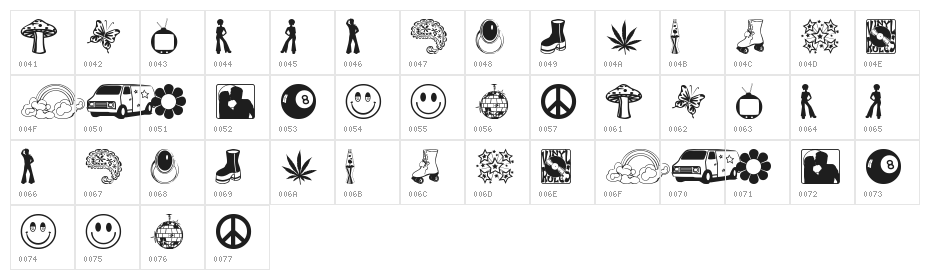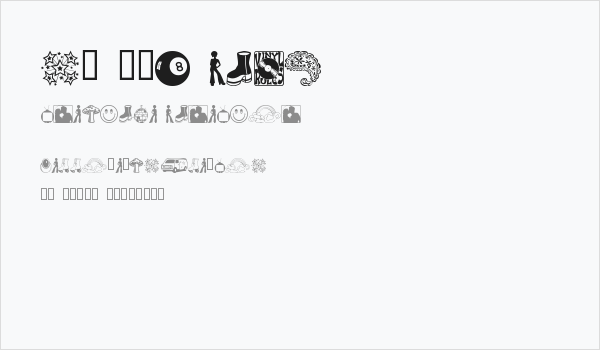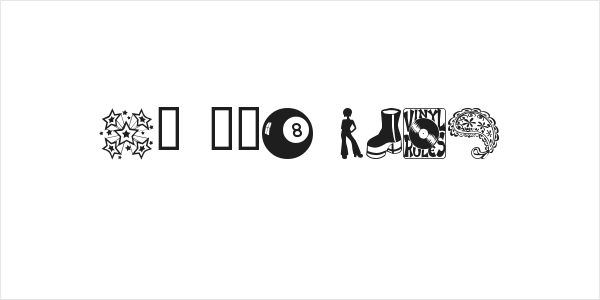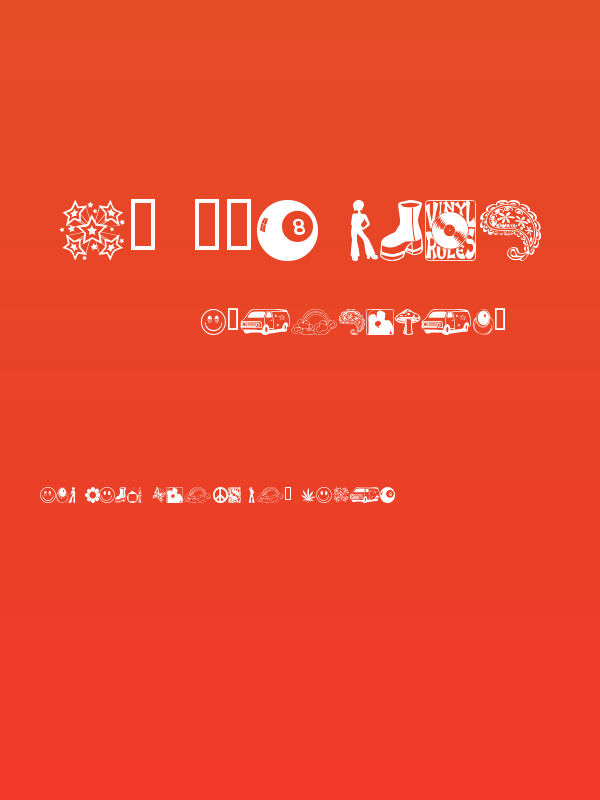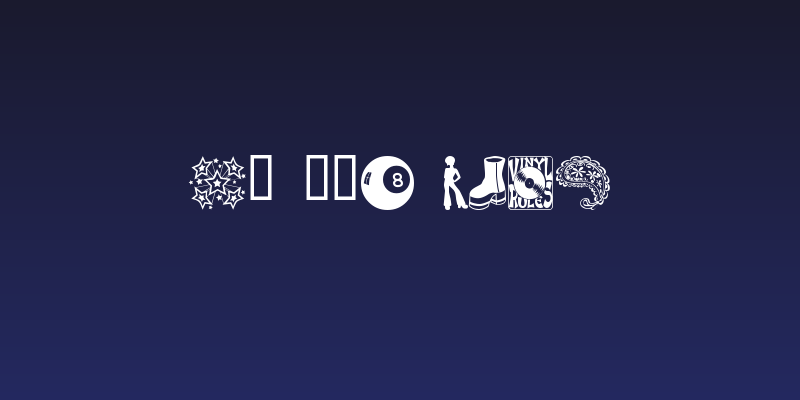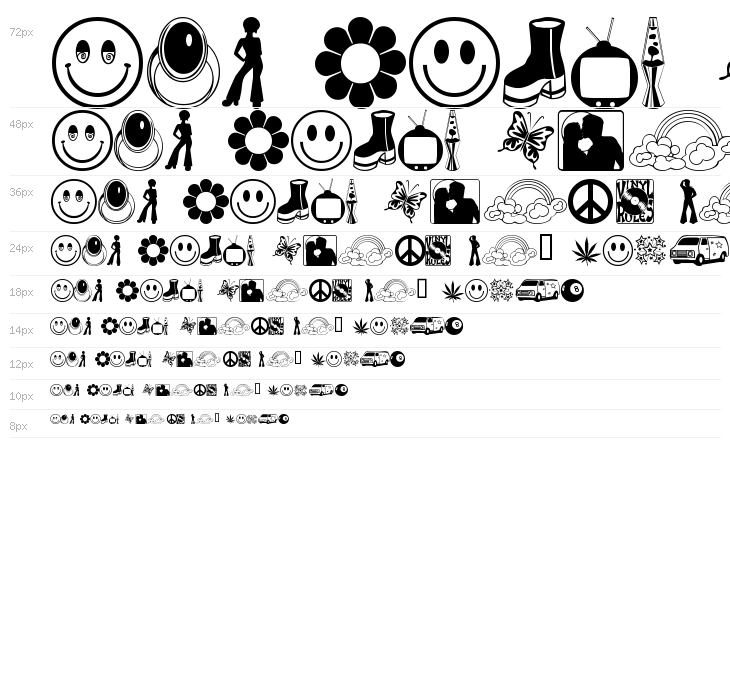
My 70s Ding Font
My 70s Ding Description
A decorative dingbat font featuring a collection of 1970s-inspired icons such as mushrooms, butterflies, disco dancers, paisley patterns, boots, marijuana leaves, lava lamps, roller skates, stars, rainbows, vans, flowers, silhouettes, 8-balls, smiley faces, disco balls, and peace symbols. Each character is represented by a unique, bold, and playful black-and-white illustration.
| Overall Style | Decorative, Retro, Playful |
| Use Case | Logos, Headlines, Decorative elements, Themed graphics |
| Proposed Projects | Posters, party invitations, event flyers, scrapbooking, themed decor, social media graphics, and retro branding. |